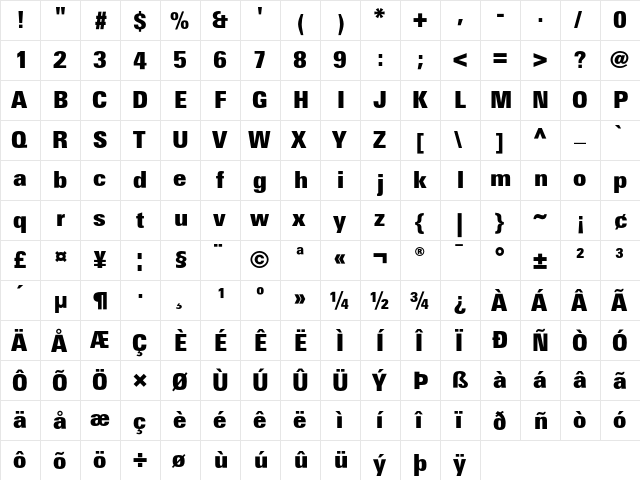
LinotypeUnivers CondExtraBlack Font Preview
LinotypeUnivers CondExtraBlack
Design Context for LinotypeUnivers Typeface
LinotypeUnivers offers clean, dependable letterforms without strong stylistic allegiance, making it a practical choice for designers who need flexibility. The condensed width makes it efficient for tight spaces without sacrificing legibility.
Pro Tip: Use LinotypeUnivers in both headline and body roles to test its range before committing to a single application.